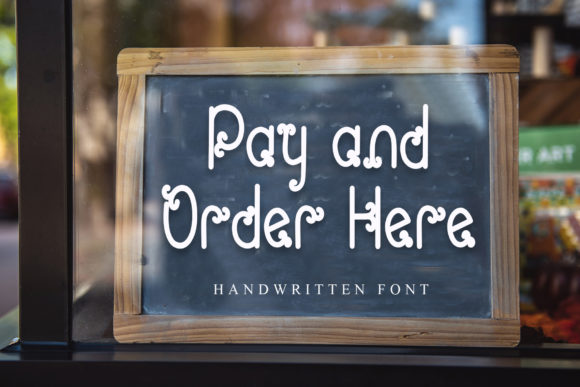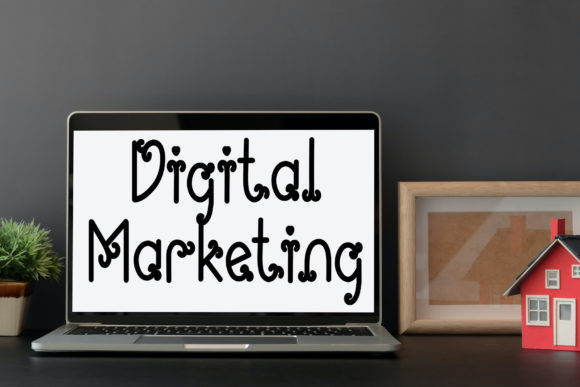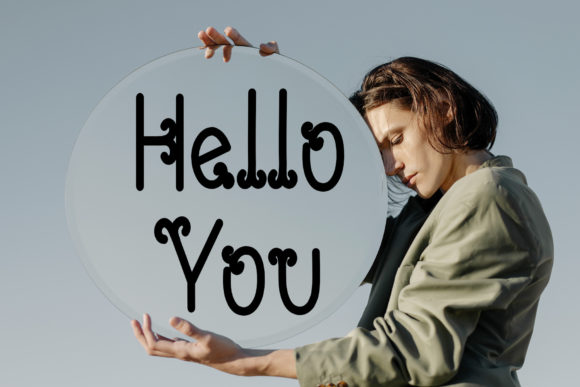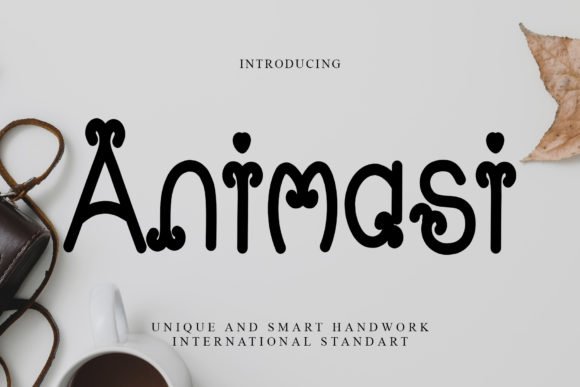
Introduction to Animasi Font
Animasi is a quirky and chic display font, that features sweet and delicate swashes.
This original look will appeal to a wide range of crafty ideas, from letterheads and titles, to stationery .
Animasi Font offers exceptional quality and versatility, making it a valuable addition to your design toolkit. Whether you’re creating for personal projects or commercial use, Animasi Font delivers professional results.